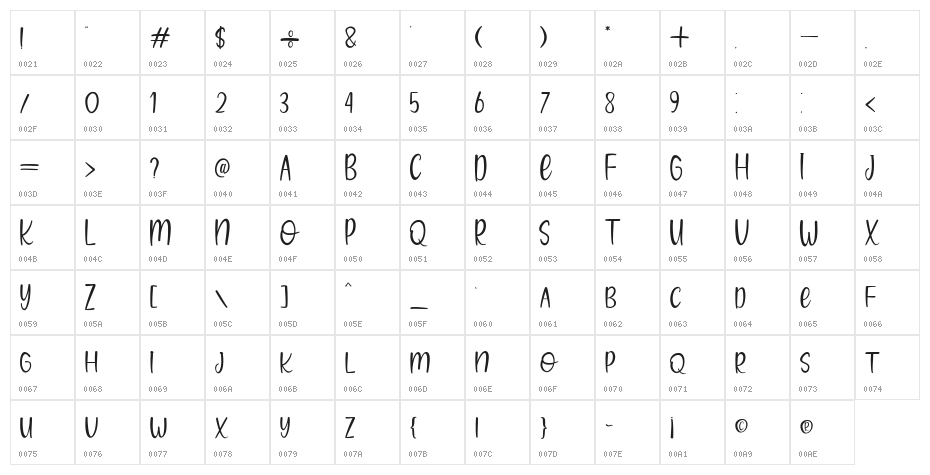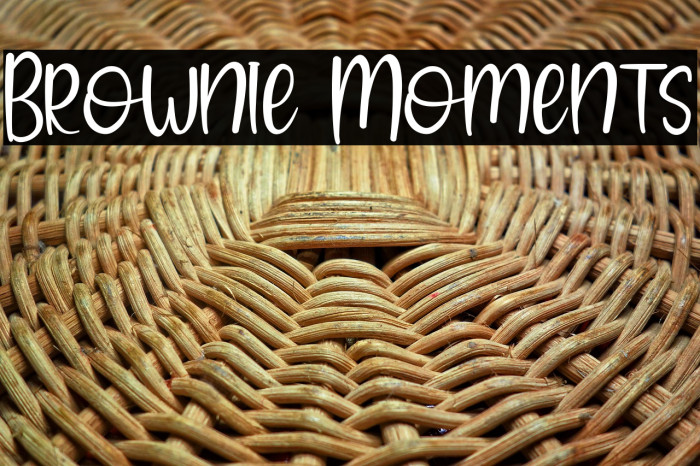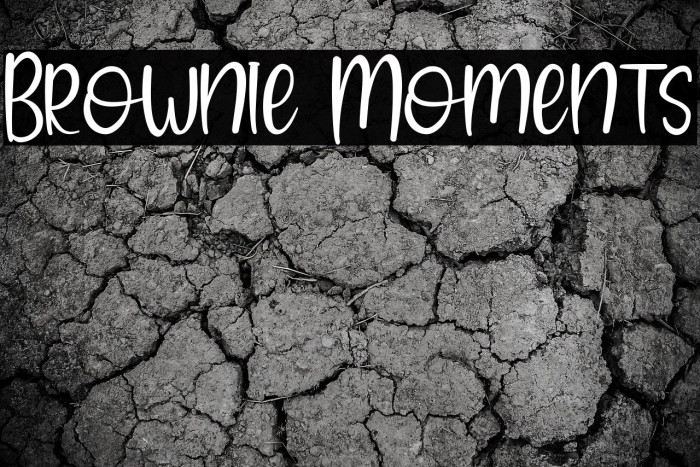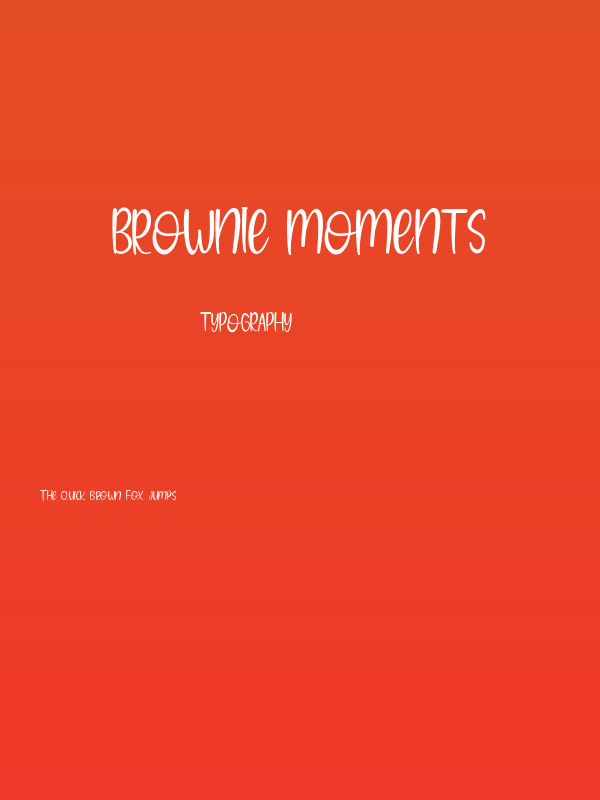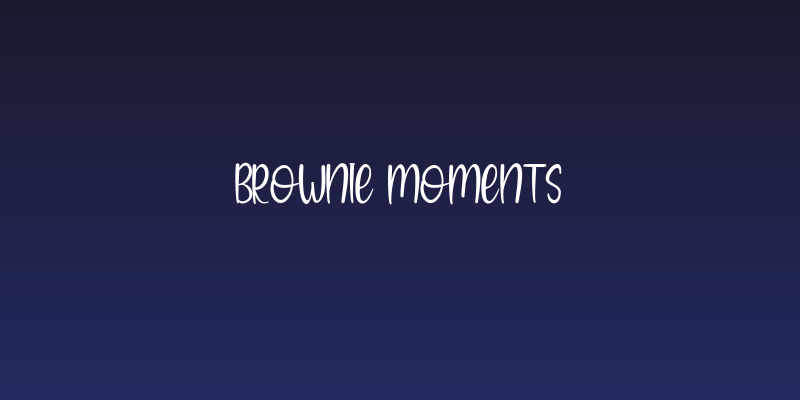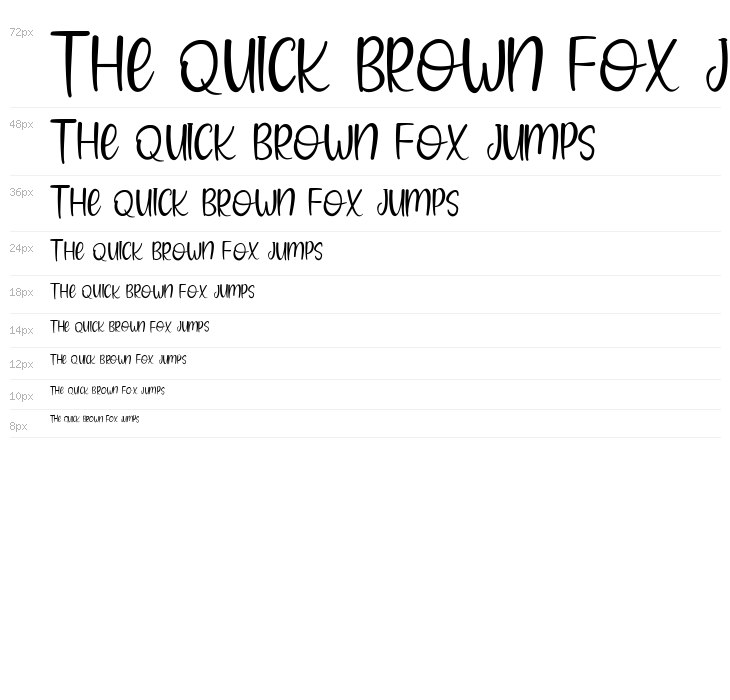
Brownie Moments Font
Brownie Moments Description
This font features a playful and whimsical style, characterized by its smooth, flowing curves and slightly irregular shapes. The letters have a hand-drawn quality, giving them a personal and friendly appearance. The uppercase and lowercase letters maintain a consistent style, with rounded edges and a slight slant, adding to the casual feel. The numbers and special characters follow the same design principles, ensuring a cohesive look across all elements. This font is perfect for projects that require a touch of personality and warmth, such as invitations, greeting cards, or playful branding.
| Overall Style | Whimsical |
| Proposed Projects | Ideal for invitations, greeting cards, playful branding, and children's books. |